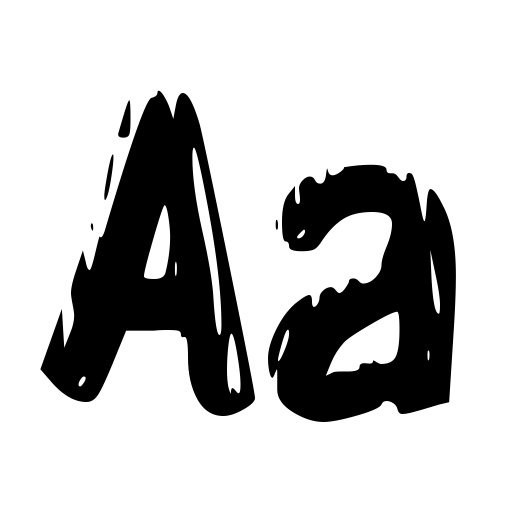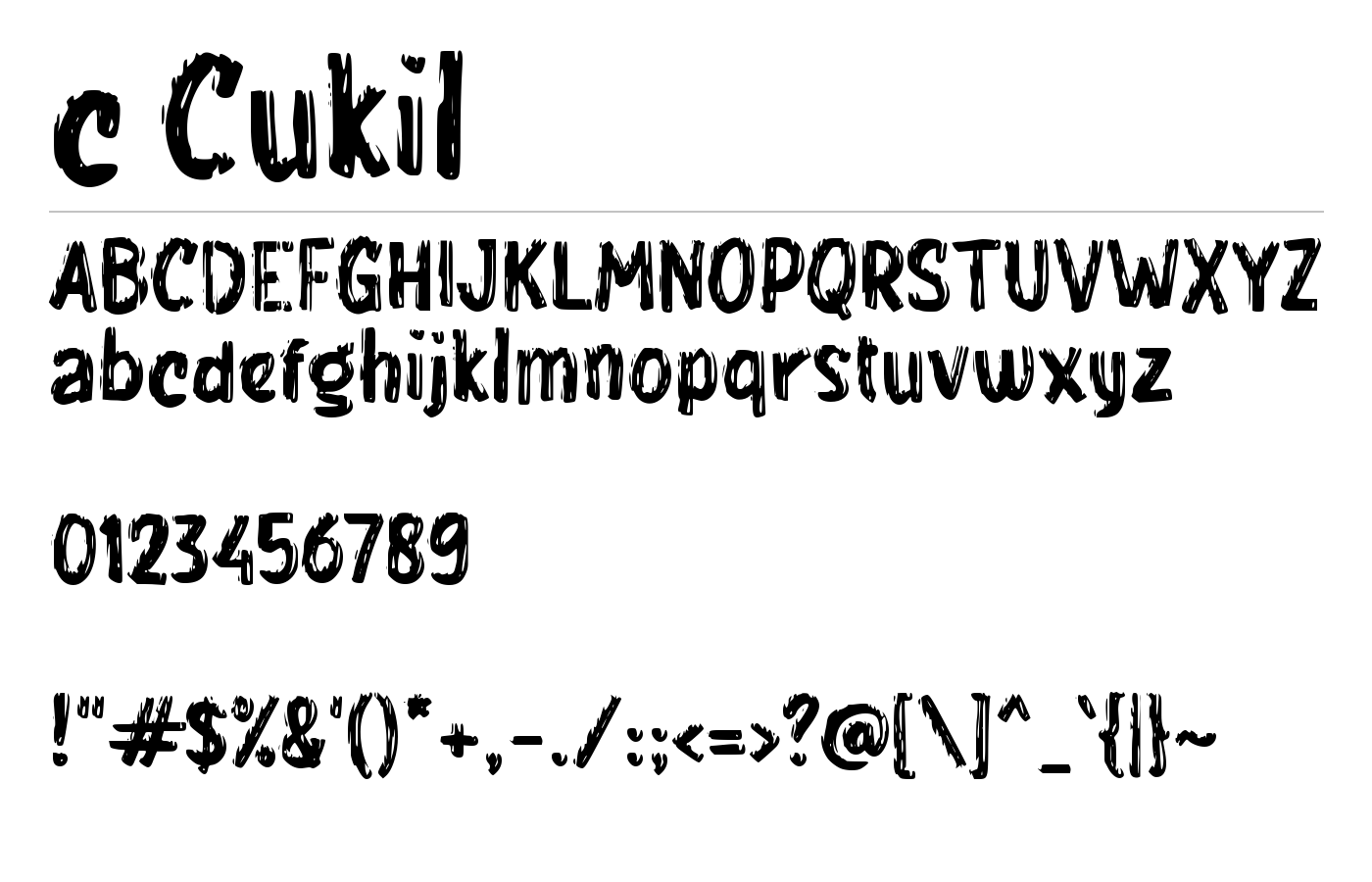
Cukil is a bold, textured sans serif font with a playful, hand-drawn feel that adds a dynamic, creative touch to any design. Its rough edges and uneven strokes convey energy and informality, making it perfect for artistic projects, casual branding, or eye-catching headlines that want to stand out with personality. This font works best in designs that aim to be fun, approachable, and visually engaging rather than formal or traditional.
c Cukil Font